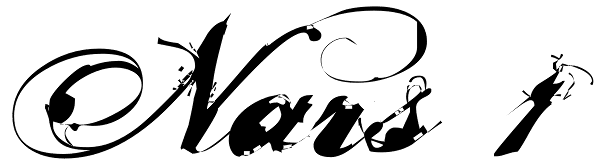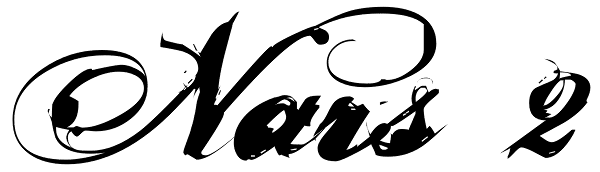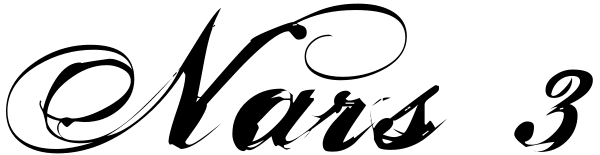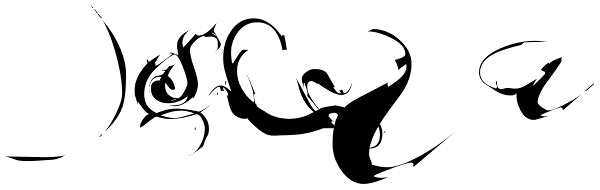
Nars
Nars is a grunge script typeface that's has many swashes on its characters! Nars works perfectly for that grunge and edgy project where the font speaks for itself: it is Dirty, Elegant, Subversive and Grunge! The font family comes with 4 styles...
Nars 1
Nars 2
Nars 3
Nars X